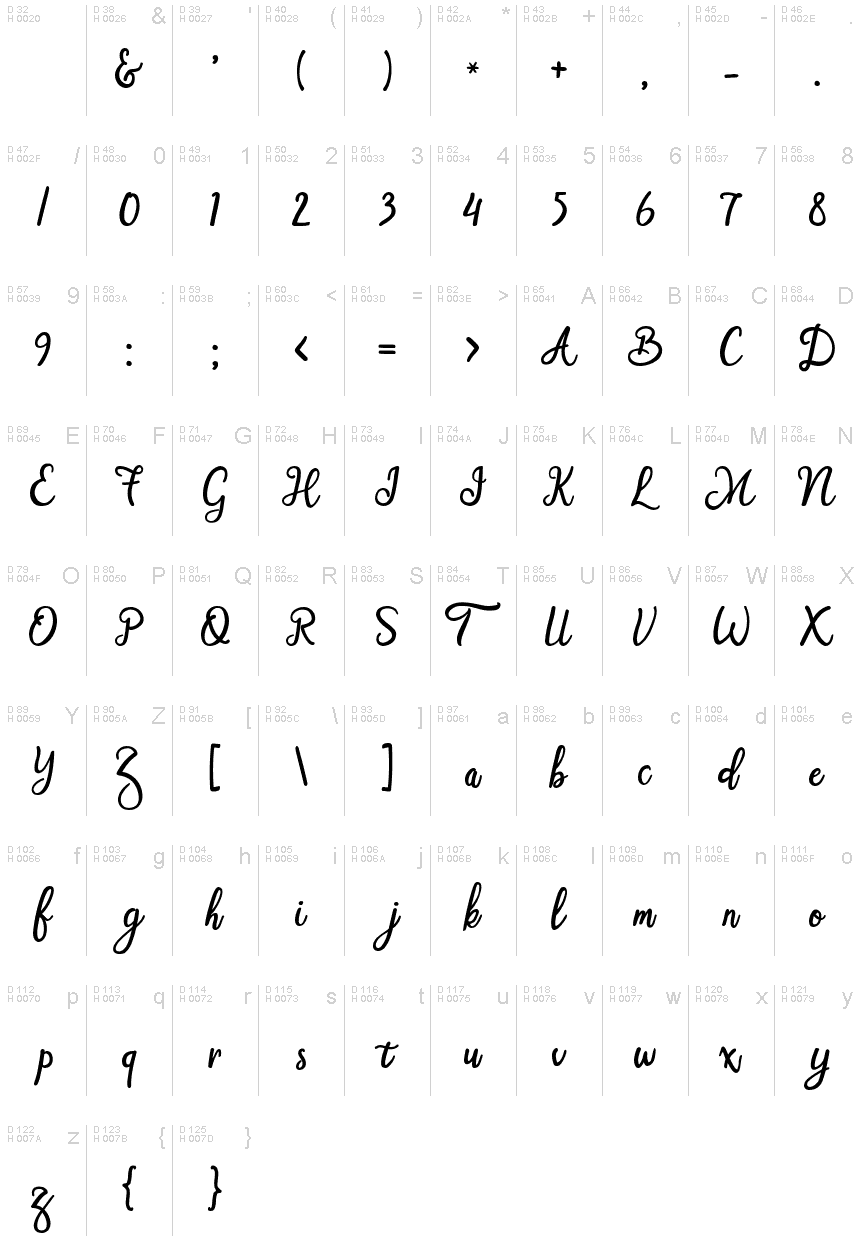
Smart Cherie
Sweet, delicious and incredibly charming: Fall in love with the Smart Cherie Duo, a striking mix of two unique fonts!
Its perfect for magazines, business cards, watermarks, invitations, packaging, t-shirts, and all other designs that require beautiful and soft elements. Alternative choices of characters from 14 Swash to Uppercase.